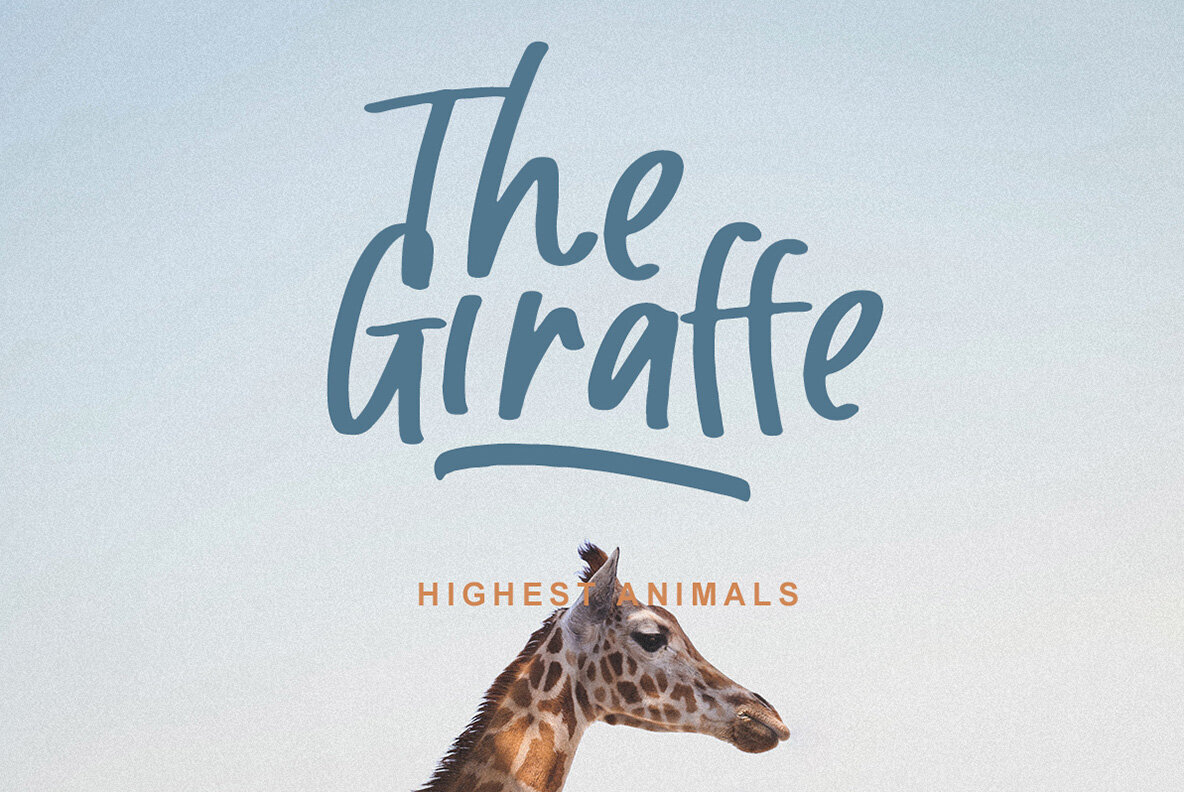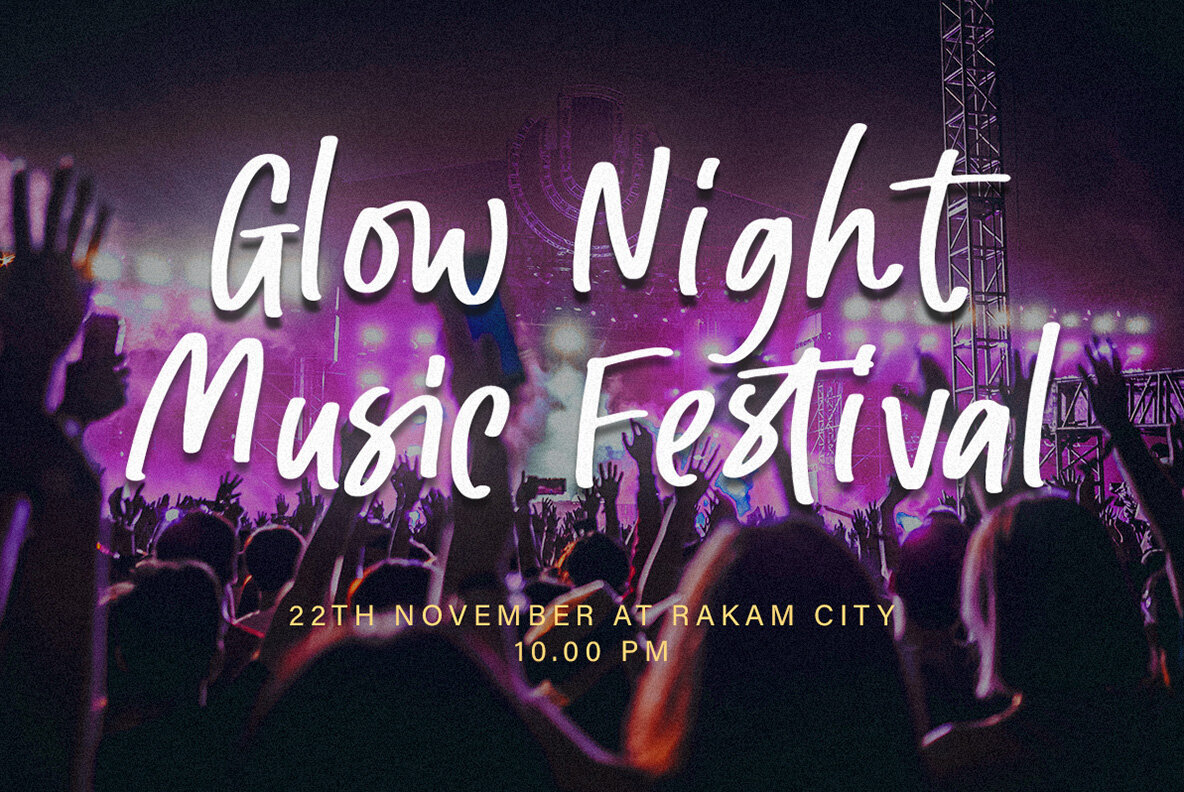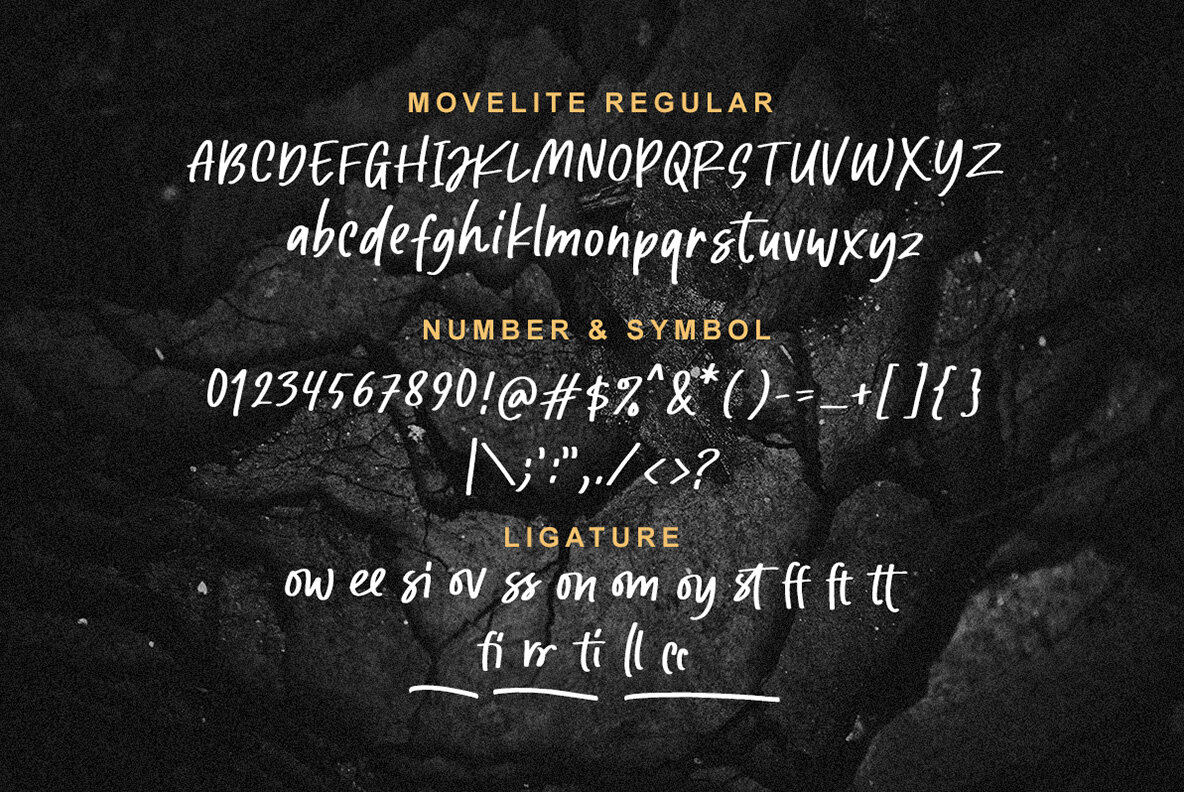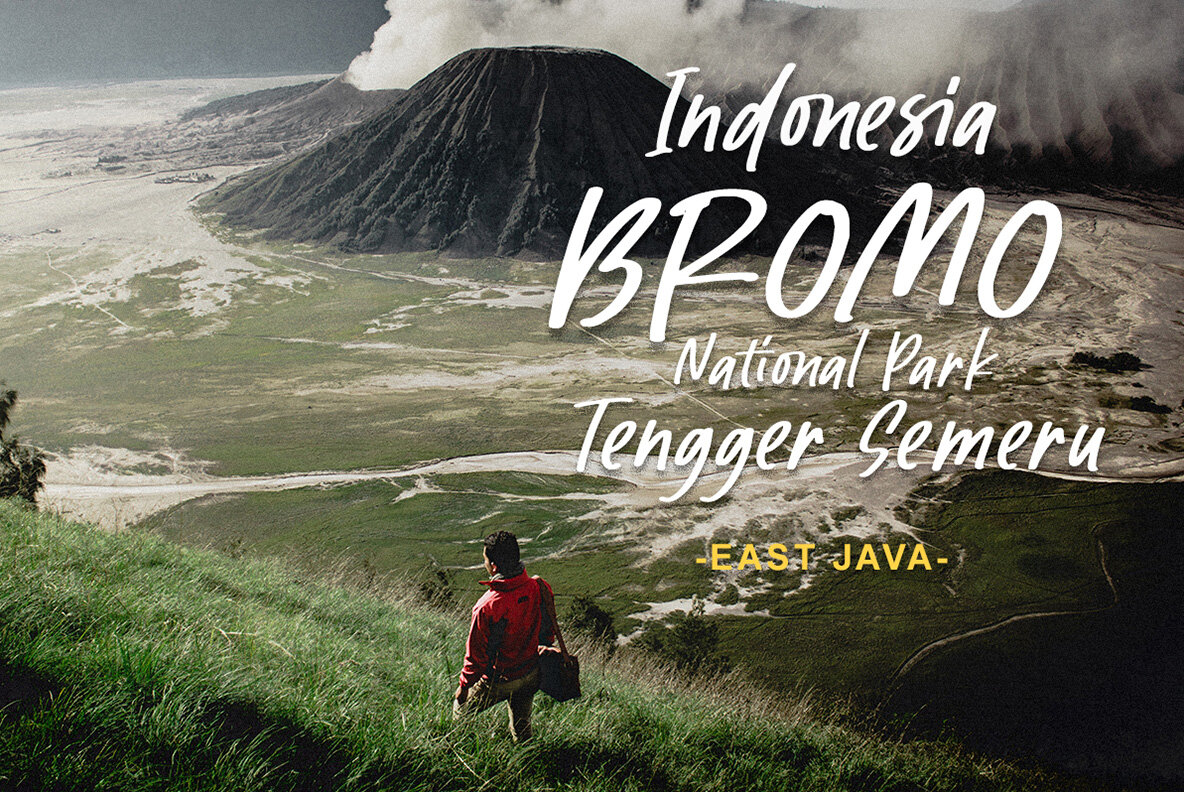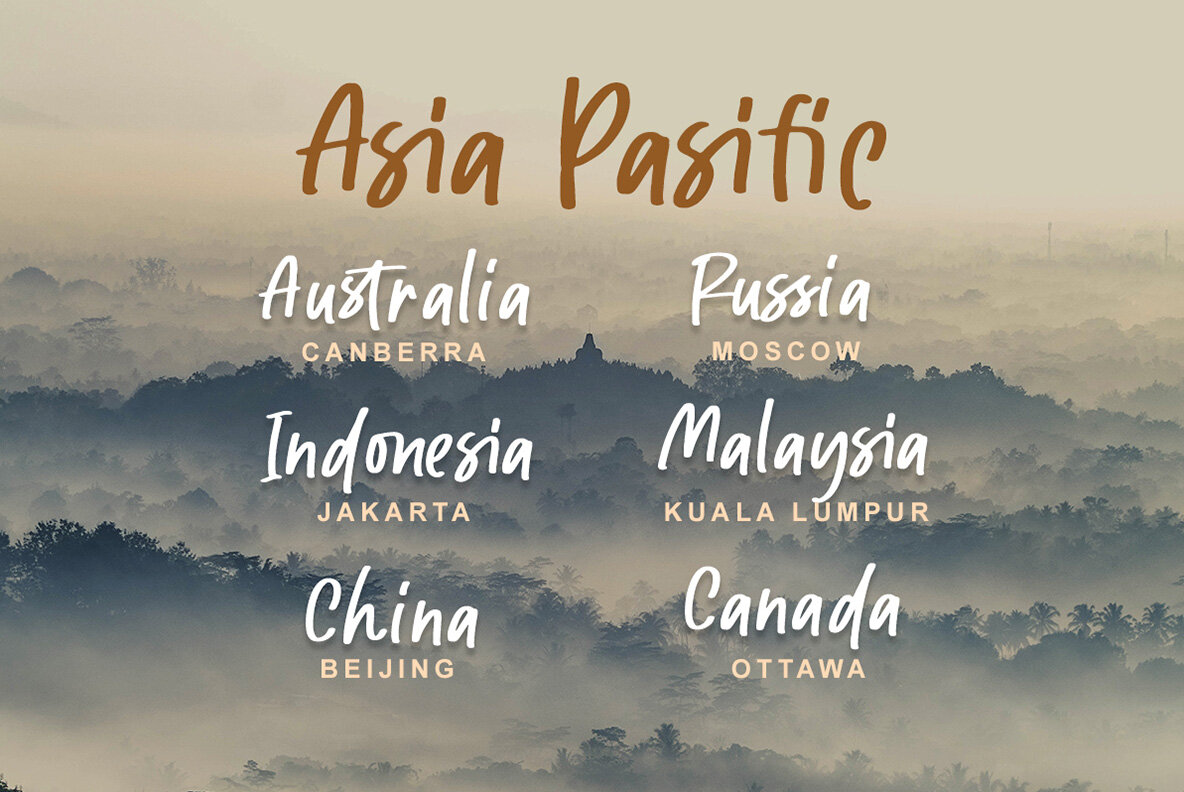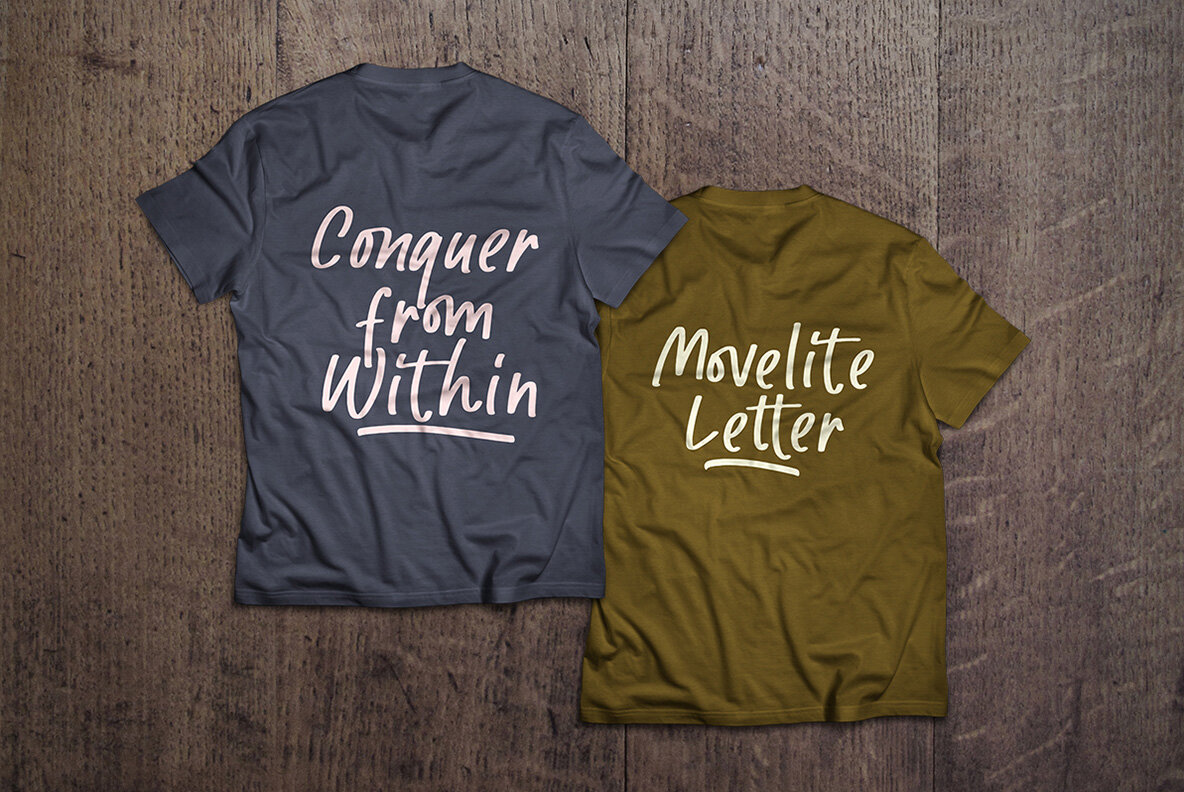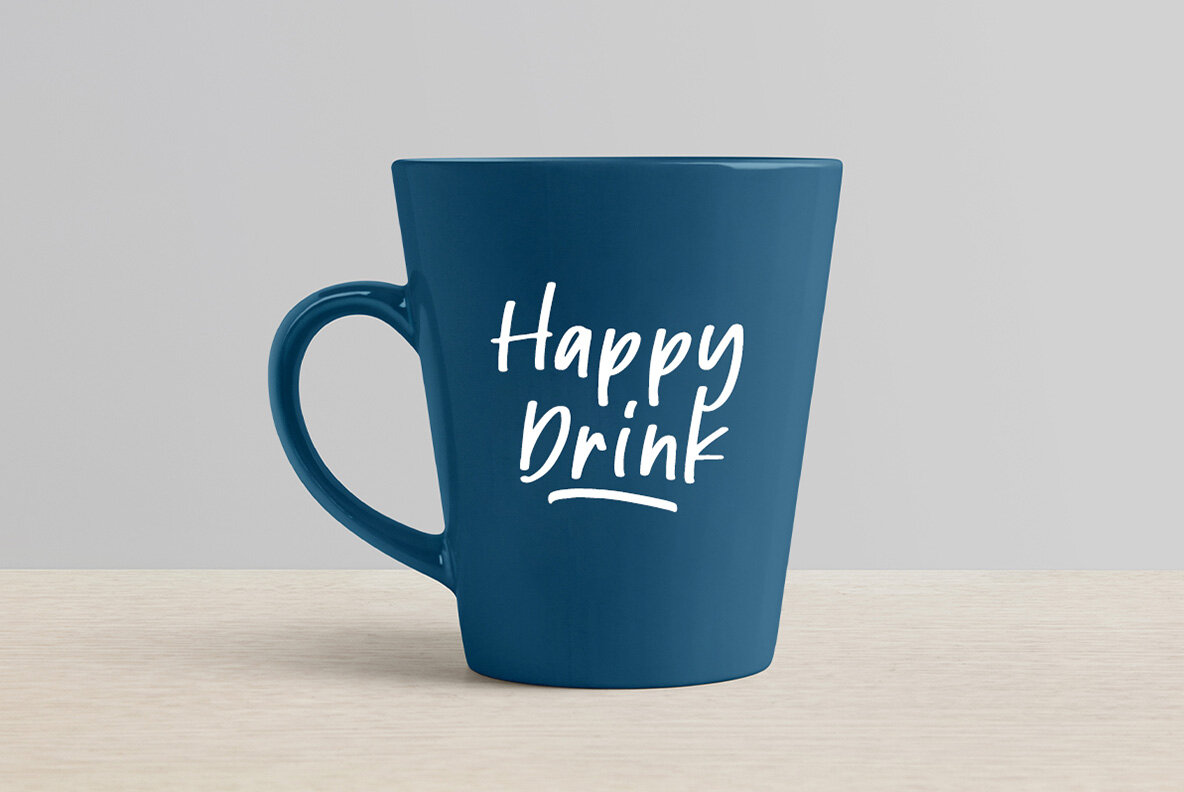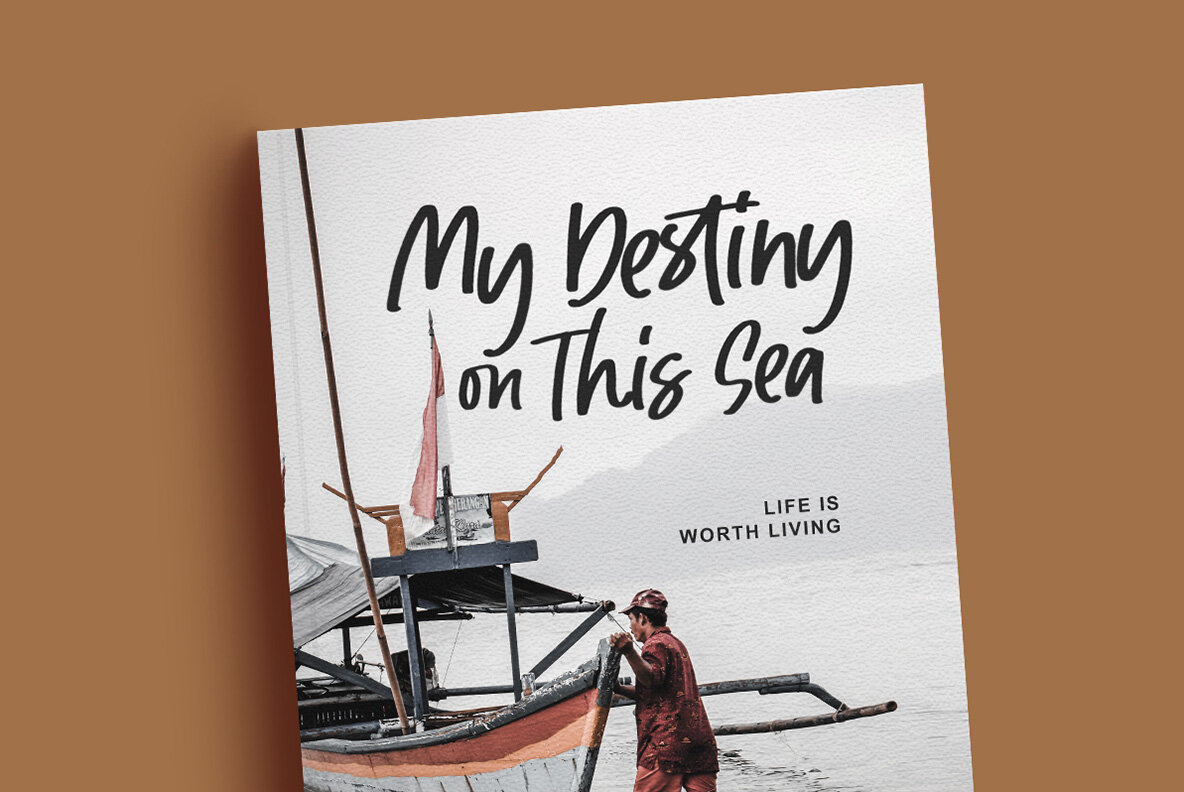
Movelite Font
Movelite Regular
Introducing Movelite! A smooth, bold font featuring numerous ligatures. Movelite was designed to create a perfect balance between unique yet simple characters. Ideal for various projects, including advertisements, book or magazine covers, logos, quotes, poster designs, personal branding, promotional materials, logotypes, product packaging, and more. Movelite also supports multiple languages!